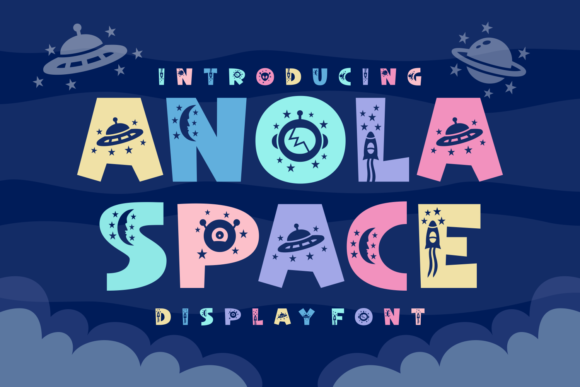
Looking to add a touch of charm and creativity to your projects? Look no further than Anola Space Font, a delightful and vibrant decorative font created by Dito from 7NTypes.
Anola Space Font is more than just a font; it's an experience. With its cute and colorful design, this font exudes playfulness and authenticity, making it the perfect choice for any children's activity or school project.
Whether you're designing invitations for a birthday party, creating educational materials, or crafting a captivating poster, Anola Space Font will instantly elevate your designs. Its unique character and charming appeal will capture the attention of both children and adults alike.
This font is more than just visually appealing; it also offers a range of practical features that make it a valuable addition to your font collection. With a wide variety of characters and symbols, Anola Space Font allows you to unleash your creativity and bring your ideas to life.
The versatility of this font is truly astounding. From playful headlines to eye-catching logos, Anola Space Font adapts effortlessly to any design concept, giving you the freedom to explore endless possibilities.
But what truly sets Anola Space Font apart is its ability to evoke emotion and create a connection with your audience. Its whimsical nature instantly brings a sense of joy and wonder, making it impossible to ignore.
Imagine the smiles on children's faces as they interact with your beautifully designed worksheets or the excitement your clients will feel when they receive a personalized card in this captivating font. Anola Space Font has the power to transform ordinary designs into extraordinary creations.